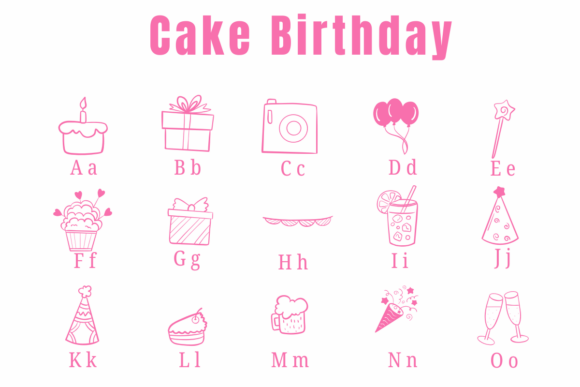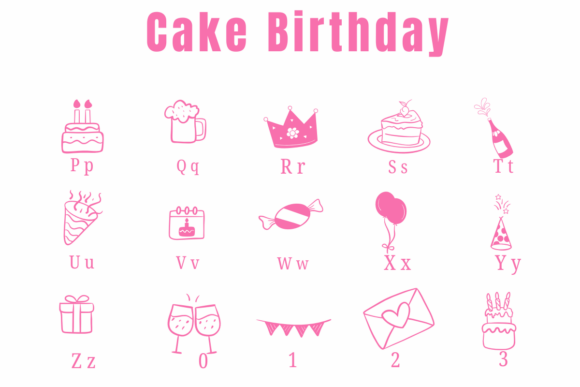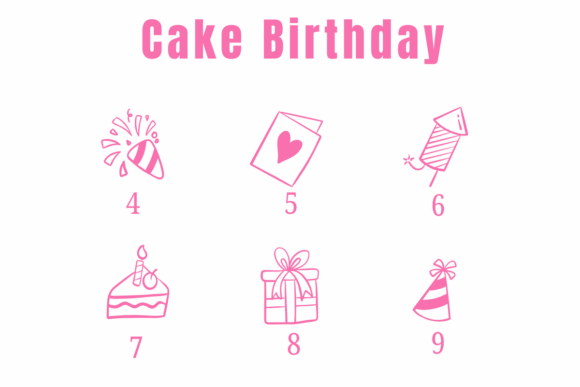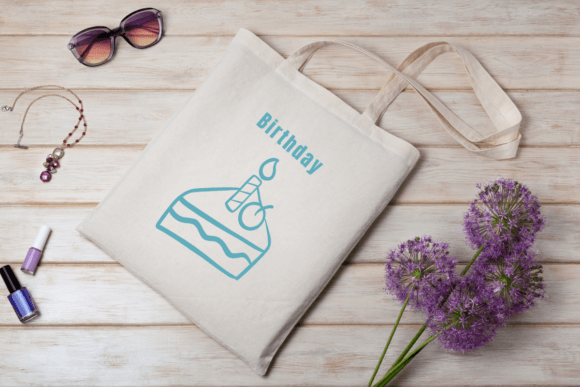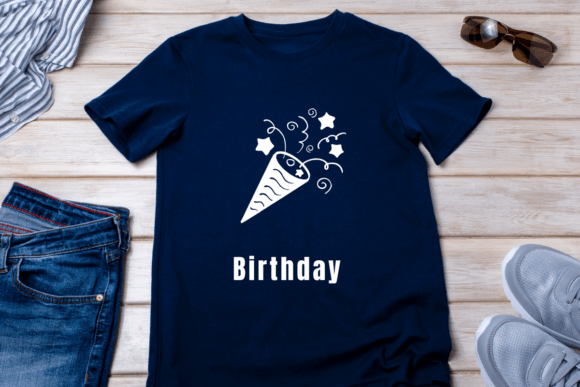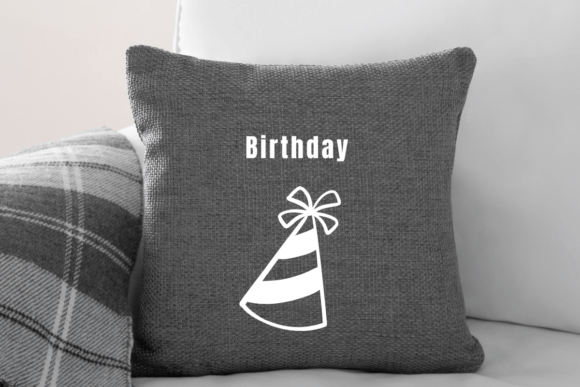
Get Ready to Celebrate with the Birthday Party Font!
Who hasn’t felt a rush of excitement when brainstorming creative ideas for a friend’s birthday party? The pressure to come up with something unique and memorable can be daunting, but what if you had the perfect tool to make your designs shine? For designers, the key to unlocking a party-perfect aesthetic lies in the Birthday Party Font, a fun dingbat font filled with adorable birthday-themed icons.
This delightful font is packed with cute balloons, cakes, candles, and presents that are sure to add a touch of whimsy to your party invitations, decorations, and crafts. With the Birthday Party Font, you’ll have everything you need to create a birthday celebration that’s truly unforgettable. Whether you’re a seasoned designer or a DIY enthusiast, this font is a valuable addition to your creative arsenal.
Birthday Party Font Key Features
- Font Family: Birthday Party Font is a unique, hand-drawn font designed specifically for celebrations and parties.
- Unique Characteristics: Features colorful, playful, and whimsical elements, making it perfect for birthday invitations, party decorations, and other celebratory materials.
Birthday Party Font Review
Overall, I think the Birthday Party Font has some great qualities, but also some notable limitations. Here’s what I think:
- Colorful and playful: The font is perfect for creating a lively and festive atmosphere, making it ideal for birthday invitations, party decorations, and other celebratory materials.
- Customizable: The font comes in various styles and colors, allowing users to personalize it to their specific needs and preferences.
- Easy to read: Despite its playful nature, the font is still legible and easy to read, making it suitable for a wide range of applications.
- Not suitable for formal events: The font’s playful nature makes it less suitable for formal events or professional materials, where a more serious tone is required.
- May not work well in small sizes: The font’s bold lines and colorful nature may become overwhelming when used in small sizes, making it difficult to read.
- Not ideal for long blocks of text: The font’s playful nature makes it less suitable for long blocks of text, where a more traditional font may be more readable.
The Birthday Party Font is a fun and playful font that’s perfect for creating a lively atmosphere. While it has some limitations, it’s a great option for birthday parties, celebrations, and other festive events. With its customizable options and easy-to-read design, it’s a great choice for those looking to add some personality to their materials.
The Birthday Party Font is perfect for creating fun and playful designs for birthday invitations, party decorations, and other celebration-related materials. It’s also great for adding a pop of color and whimsy to your designs.
For the best results, use the Birthday Party Font in conjunction with bright and bold colors. You can also experiment with different font sizes and styles to create a unique and eye-catching design.